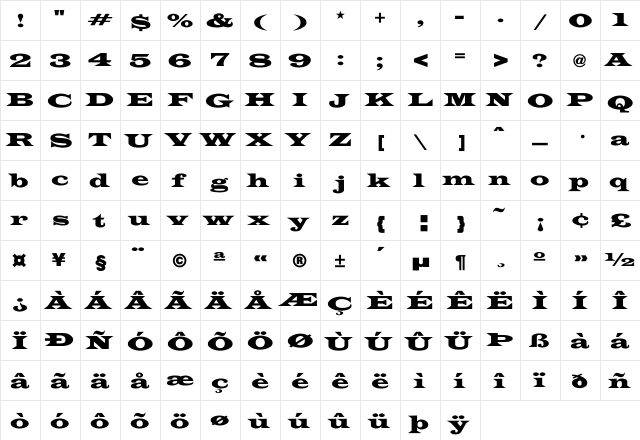
Beleiz Thick Regular
Design Context for Beleiz Thick Typeface
Beleiz Thick offers clean, dependable letterforms without strong stylistic allegiance, making it a practical choice for designers who need flexibility.
Pro Tip: Use Beleiz Thick in both headline and body roles to test its range before committing to a single application.